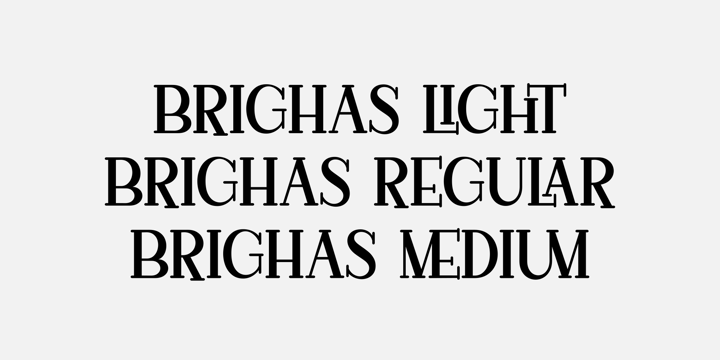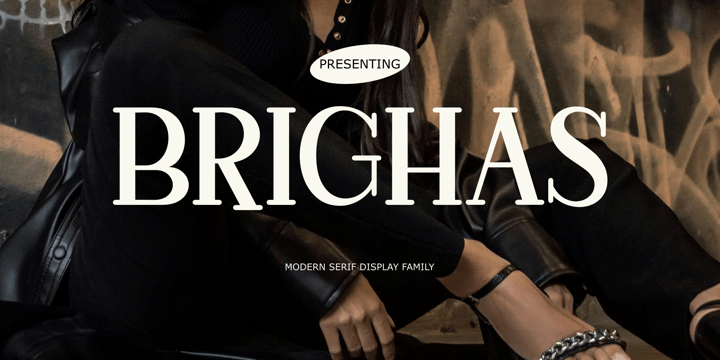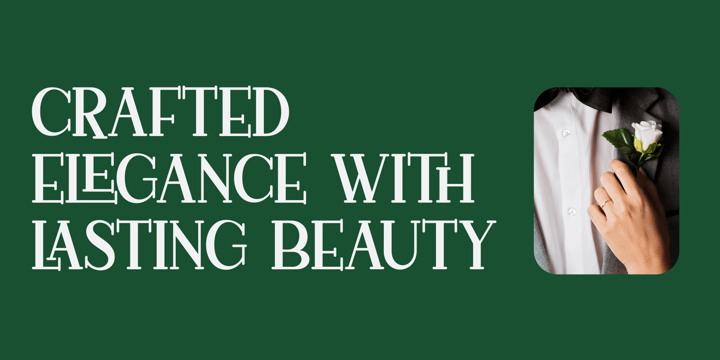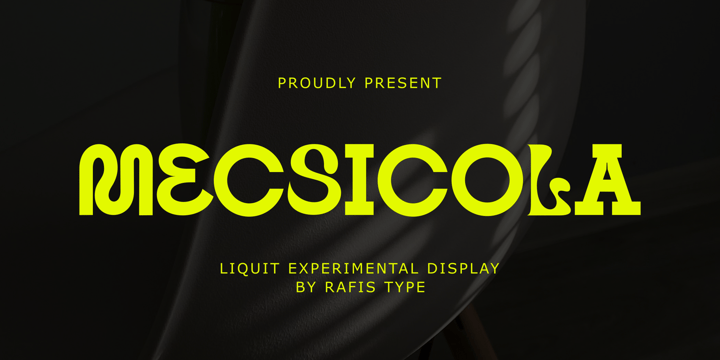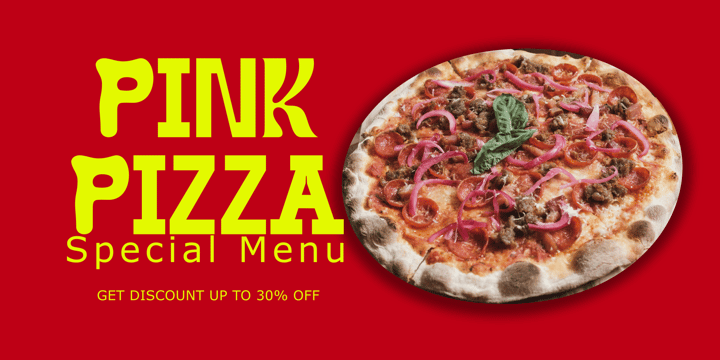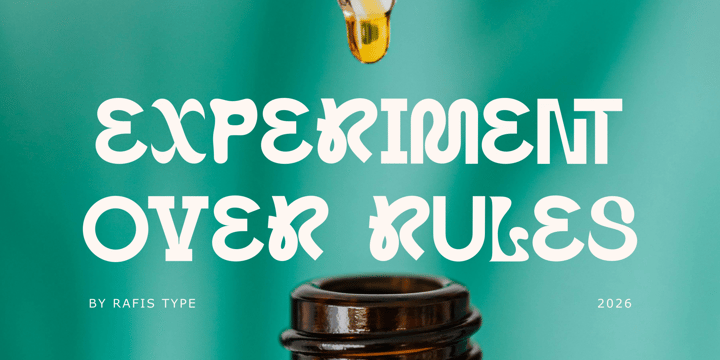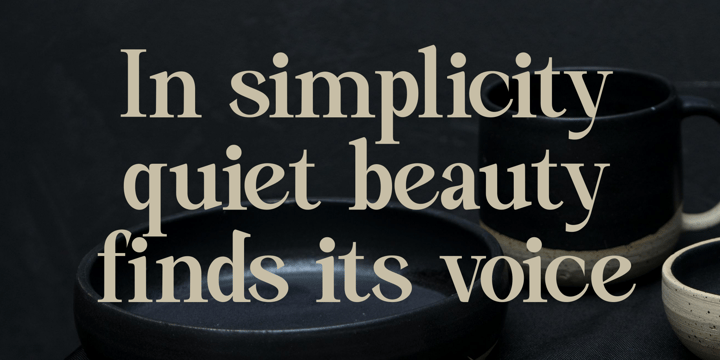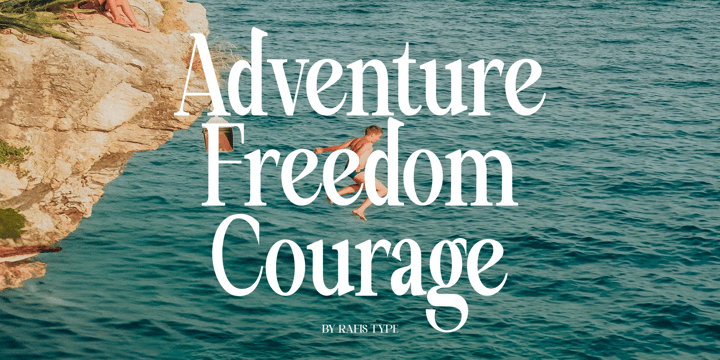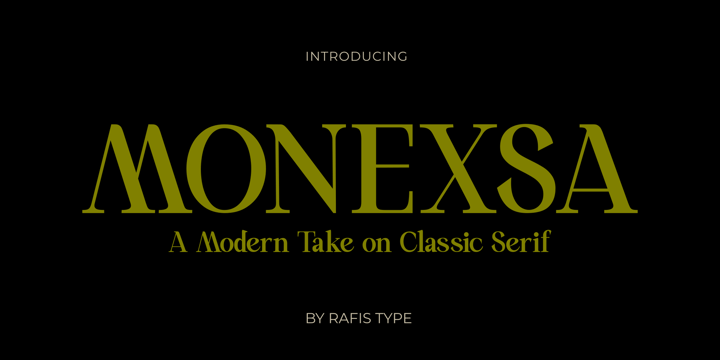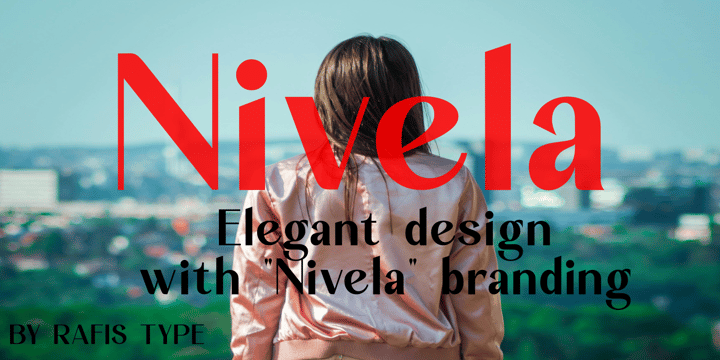
Agus Priono
Agus Priono is an independent type designer based in Indonesia and the founder of Rafis Type. His interest in type design grew from a background in graphic design, where typography plays a central role in shaping visual identity and communication.
Agus focuses on developing typefaces that are practical, adaptable, and visually balanced. His design process emphasizes readability, proportion, and consistency, while allowing space for subtle personality within each typeface. He enjoys refining details and testing fonts across real-world applications to ensure reliable results for designers.
Through Rafis Type, Agus continues to explore type design as a craft that supports both creative expression and everyday design needs, contributing thoughtfully developed fonts to the global design community.